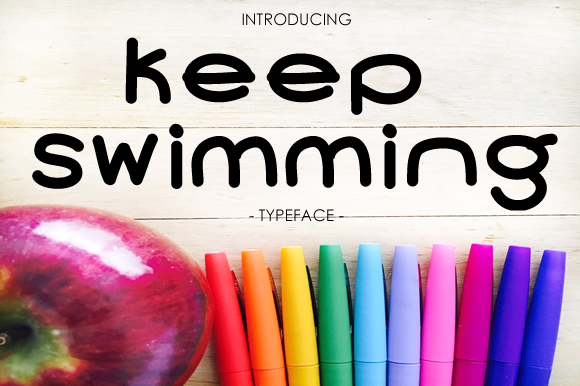
Keep Swimming Font
About Keep Swimming Font
Keep Swimming is a thick and wide font, perfect for use as a headline to a ton of different project types. This font looks most at home in school oriented designs, and its weight makes it the focal point to any project.